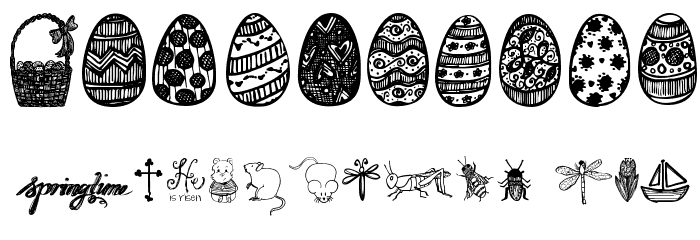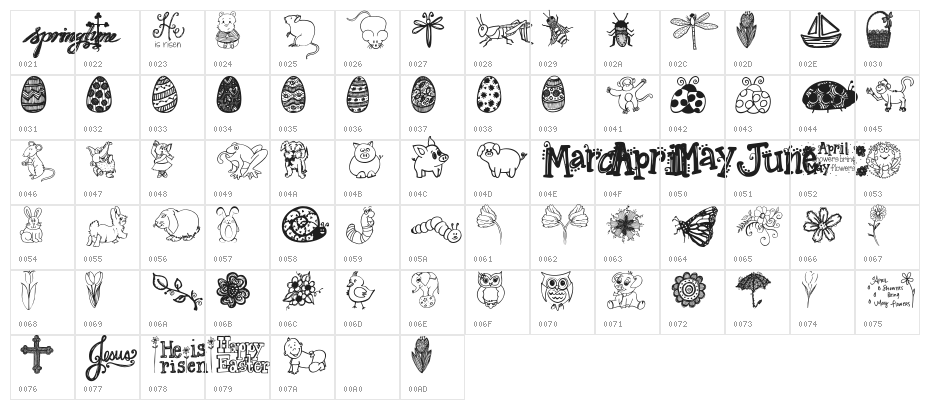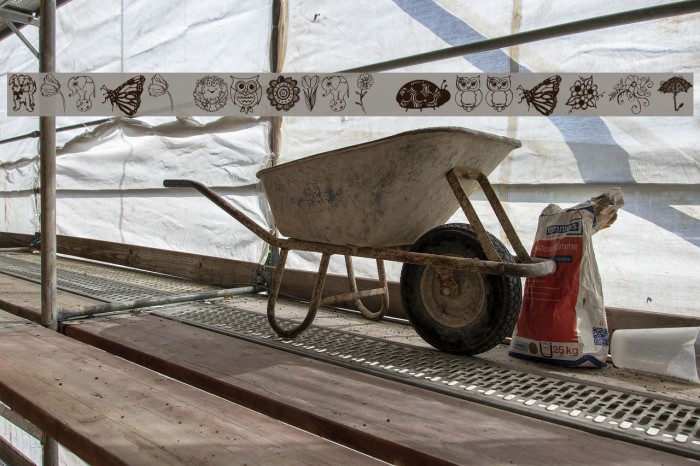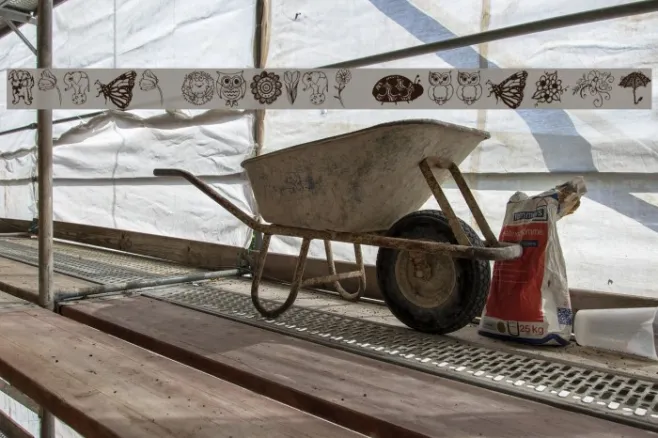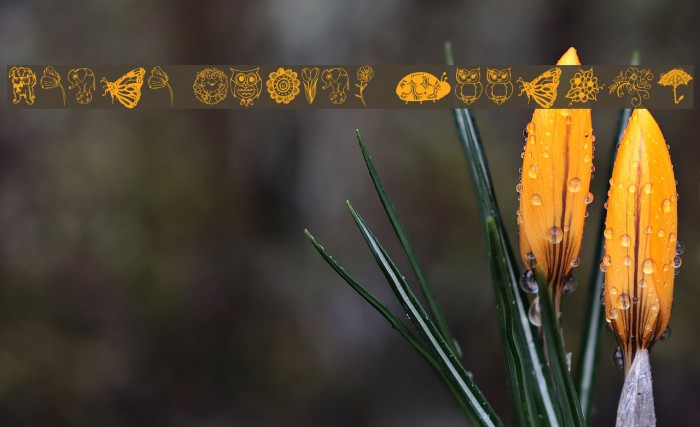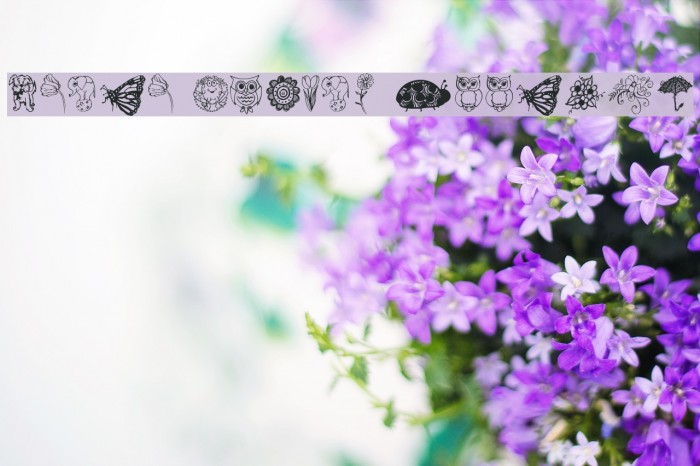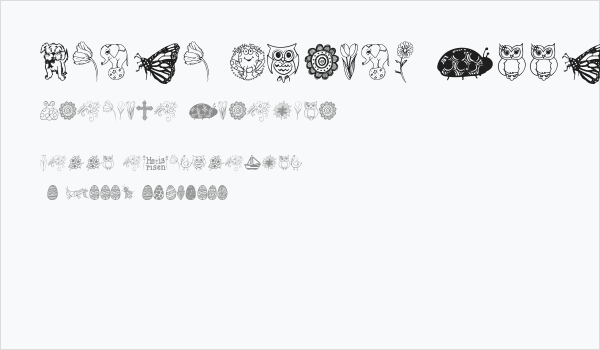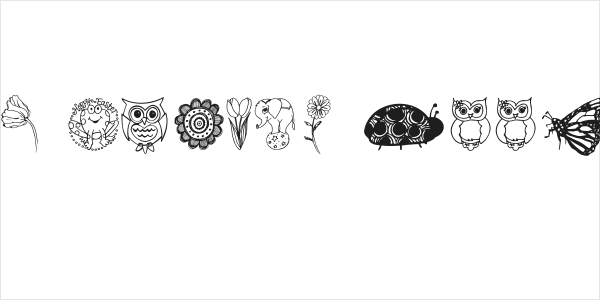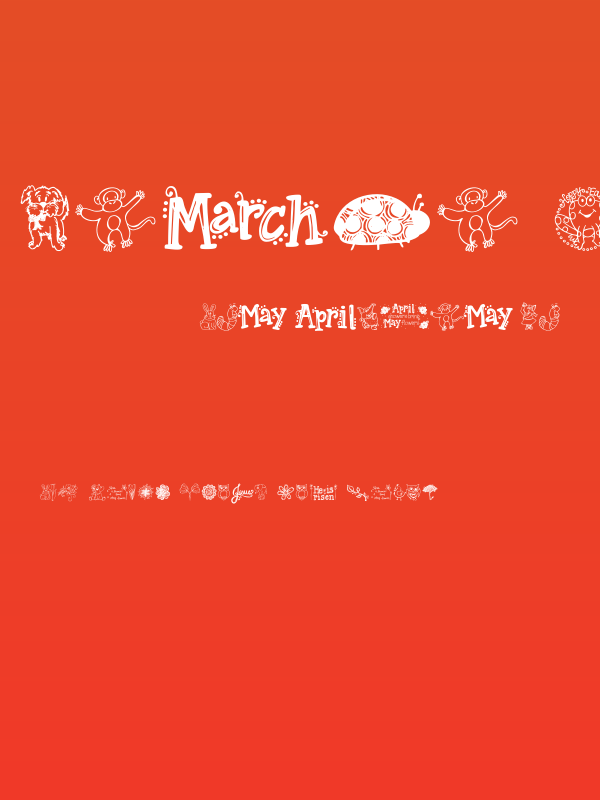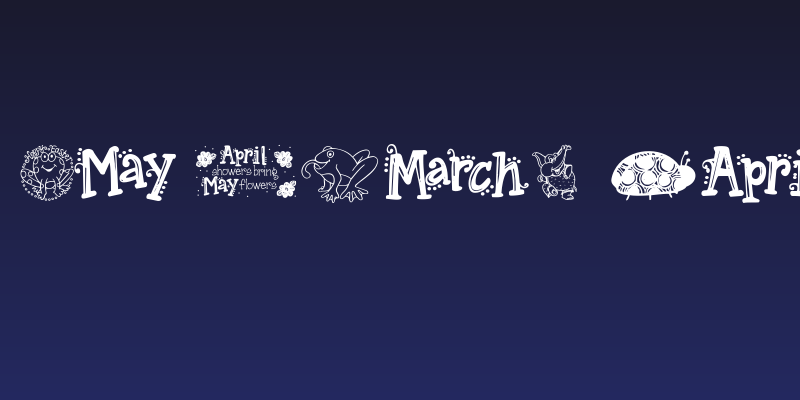
Janda Spring Doodles Font
Janda Spring Doodles Description
This is not a traditional font but rather a collection of whimsical, hand-drawn doodles and decorative elements themed around spring and Easter. The design includes playful illustrations of animals, flowers, Easter eggs, and seasonal motifs. The text elements, such as the names of months and phrases like 'He is risen' and 'Happy Easter', are presented in a decorative, hand-drawn style that complements the doodles. The overall aesthetic is lighthearted and festive, making it suitable for projects that require a touch of seasonal charm.
| Use Case | Decorative elements for seasonal projects. |
| Proposed Projects | Ideal for greeting cards, seasonal event invitations, scrapbooking, and festive decorations. |